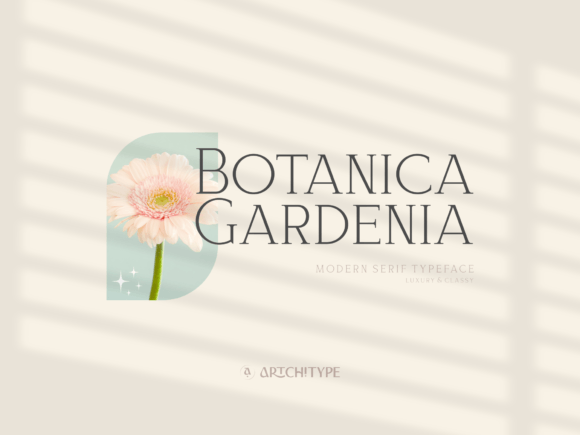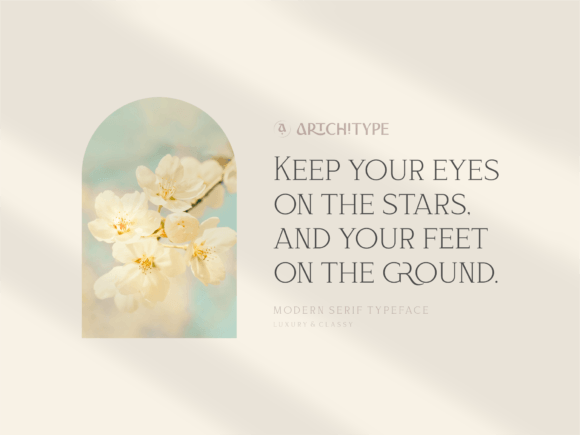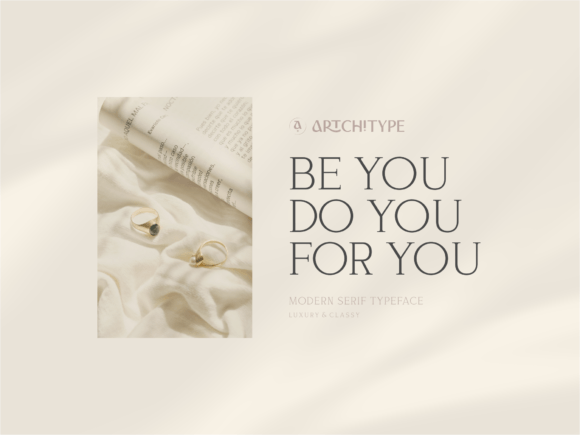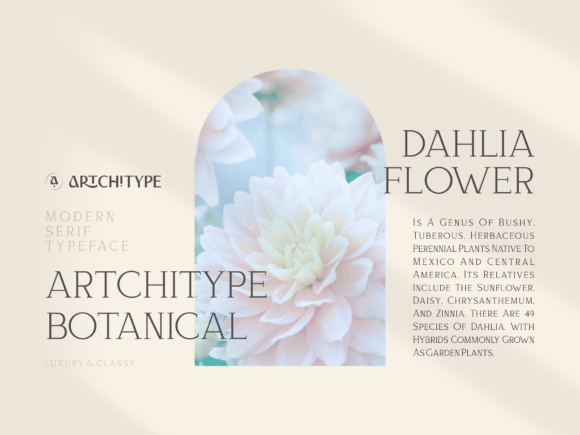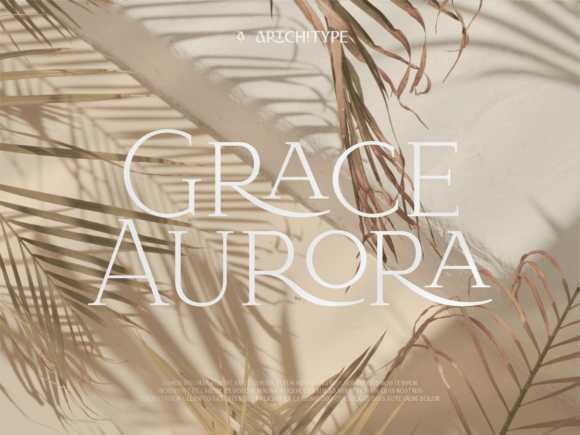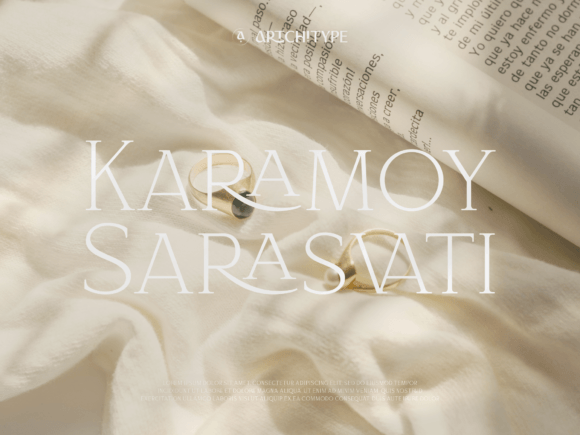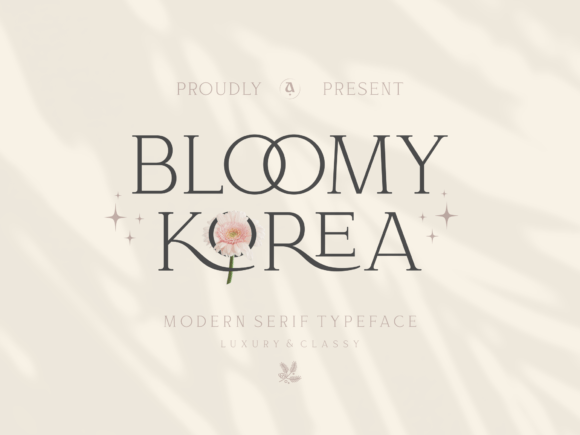
Bloomy Korea Font: Elevate Your Designs with Elegance
Are you on the hunt for a font that exudes sophistication and class? Look no further than Bloomy Korea, a stunning display serif font that’s perfect for designers and crafters alike. With its impressive character set and versatility, Bloomy Korea is sure to become a go-to choice for a wide range of projects.
What is Bloomy Korea Font?
Bloomy Korea is a classy display serif font that boasts an impressive 270+ characters. This extensive character set includes uppercase and lowercase letters, multilingual support, alternates, and most common characters. Whether you’re working on a logo, social media post, product packaging, or product design, Bloomy Korea has got you covered.
Key Features of Bloomy Korea Font
- Extensive Character Set: With over 270 characters, Bloomy Korea offers a wide range of options for your design needs.
- Multilingual Support: This font supports multiple languages, making it perfect for global brands and designers.
- Alternates and Ligatures: The font includes alternates and ligatures, giving you even more creative options.
Perfect for Various Projects
Bloomy Korea’s versatility makes it an excellent choice for a variety of projects, including:
- Logos: Create a lasting impression with a custom logo that showcases your brand’s personality.
- Social Media Posts: Elevate your social media presence with eye-catching posts that feature Bloomy Korea’s elegant typography.
- Product Packaging: Make your product stand out on store shelves with beautiful packaging that incorporates Bloomy Korea.
- Product Designs: Add a touch of sophistication to your product designs with Bloomy Korea’s classy font.
Why Choose Bloomy Korea Font?
So, why should you choose Bloomy Korea for your design needs? Here are just a few reasons:
- Elegant Design: Bloomy Korea’s serif design exudes elegance and sophistication, making it perfect for high-end brands.
- High Versatility: With its extensive character set and multilingual support, Bloomy Korea can be used for a wide range of projects.
Tips for Using Bloomy Korea Font
To get the most out of Bloomy Korea, here are a few tips:
- Experiment with Different Sizes: Bloomy Korea looks great in large display sizes, but it can also be used for smaller text.
- Play with Ligatures: The font’s ligatures can add an extra touch of elegance to your designs.
- Pair it with Other Fonts: Bloomy Korea pairs well with a variety of fonts, so don’t be afraid to experiment with different combinations.
| Font Name | Bloomy Korea Font |
| Author | Artchitype Studio |
In conclusion, Bloomy Korea is a stunning display serif font that’s perfect for designers and crafters looking to add a touch of elegance to their projects. With its extensive character set, multilingual support, and PUA encoding, Bloomy Korea is a versatile font that can be used for a wide range of applications. Whether you’re working on a logo, social media post, product packaging, or product design, Bloomy Korea is sure to impress.